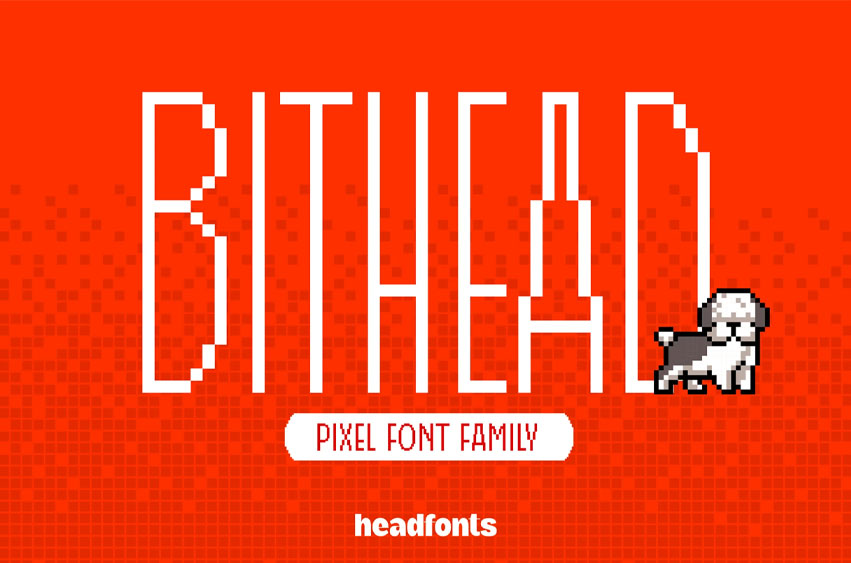
Bithead Pixel Font
Bithead Pixel Font is a pixel display font family built for designers who want that raw, unfiltered retro energy — the kind that feels ripped straight from an 8-bit screen. Three weights, one consistent character: constructed, angular, loud. Available in Light, Regular, and Bold, Bithead gives you full control over hierarchy and visual weight. The Light keeps things sharp and editorial. The Regular hits that classic pixel-screen sweet spot.
The Bold goes full arcade — heavy, blocky, impossible to ignore. Every character is uppercase only. Lowercase letters render as small caps, keeping your text clean and consistent without breaking the grid logic the font is built on.
This is not a font for body text. It’s a display typeface designed to own the headline and nothing else. If your project needs presence, Bithead delivers it in every weight.